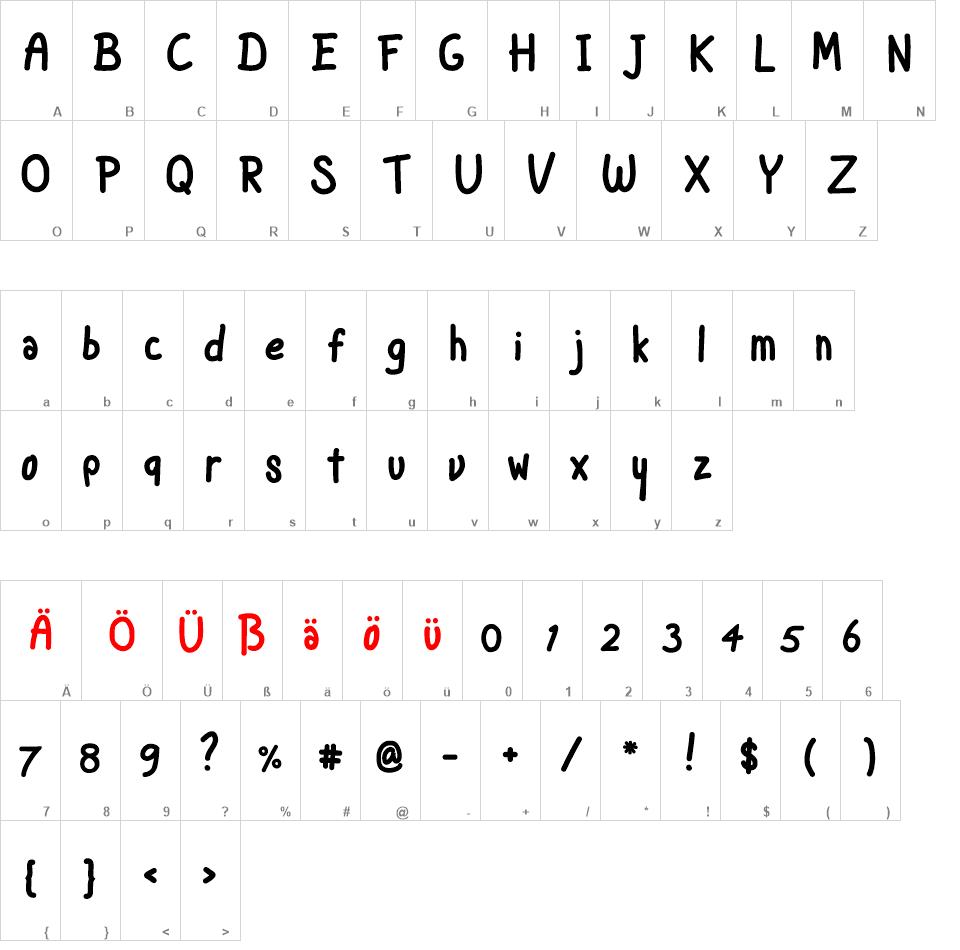
Dion
Dion font
A typeface suitable for comics and cartoons and a nice alternative to Comic Sans.
Dion features extensive language support and 23 ligatures accessible by the OpenType panel in your design software.